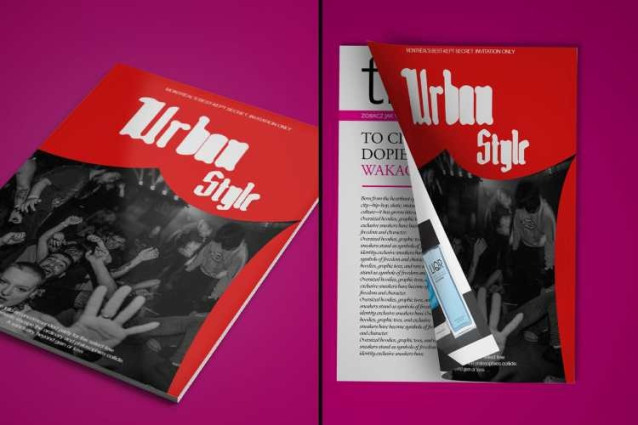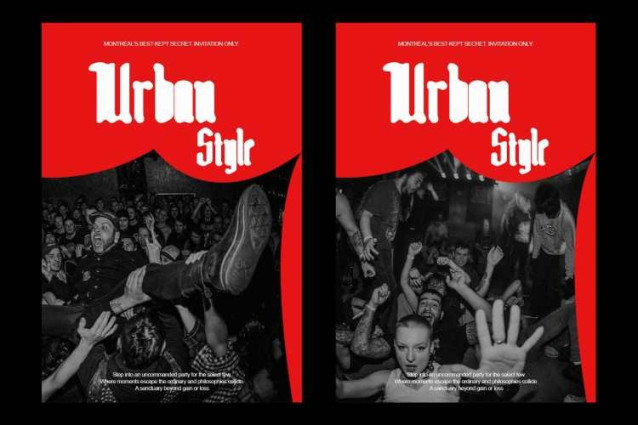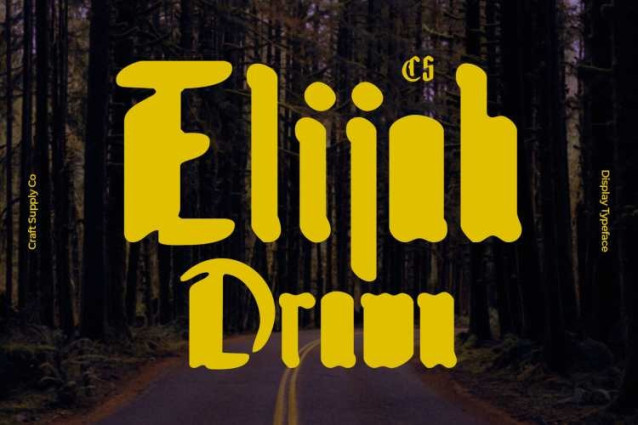
CS Elijah Drawn Font
CS Elijah Drawn takes its roots from traditional Gothic-style lettering, reimagined with a contemporary edge. Its bold, dramatic strokes bring a sense of strength and authority, making it a standout choice for impactful display typography.
Hand-Drawn Stamp Effect
Enhanced with a drawn texture, CS Elijah Drawn carries the appearance of a handcrafted stamp. Each angle feels like it was shaped with a thick pen, giving the font a rugged yet artistic charm. This handcrafted detail makes it visually engaging and full of character.
Perfect for Editorial and Classic Designs
Ideal for magazine titles, newspapers, and vintage-inspired layouts, CS Elijah Drawn communicates a sense of tradition and history. Its Gothic roots lend an old-world atmosphere, while the hand-drawn texture adds freshness and authenticity.
Versatile Display Applications
Beyond editorial work, CS Elijah Drawn thrives in posters, logos, and branding that seek a strong and classic look. Whether you’re aiming for a historical vibe or a raw handcrafted style, this font ensures your design stands out with bold personality.